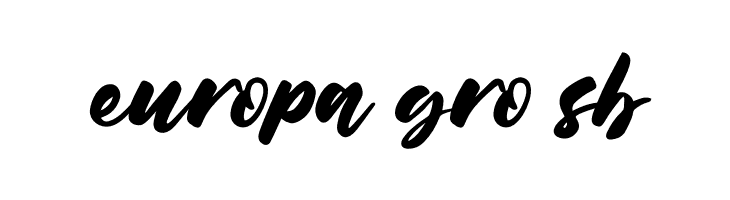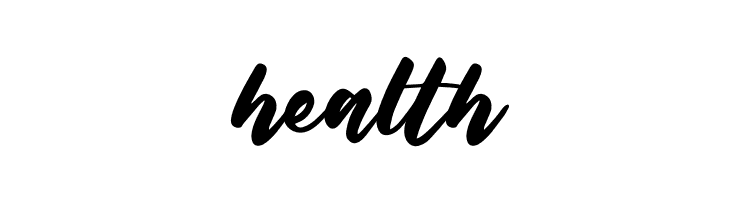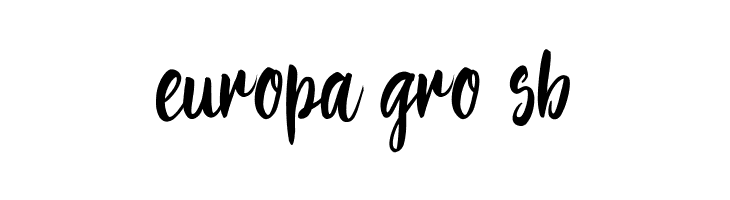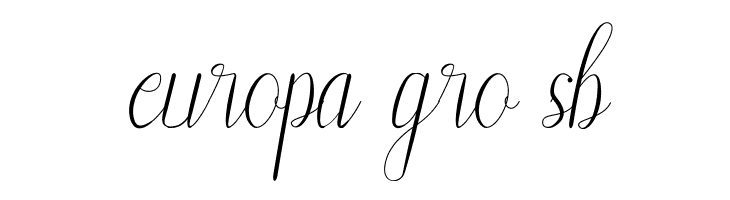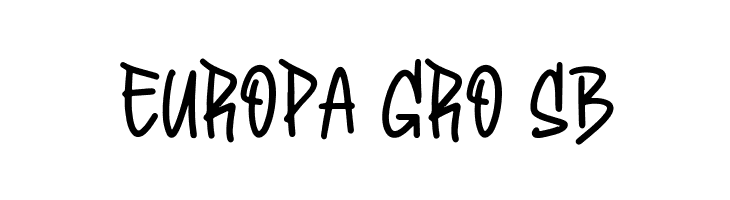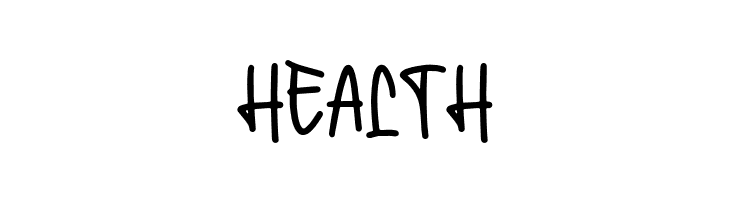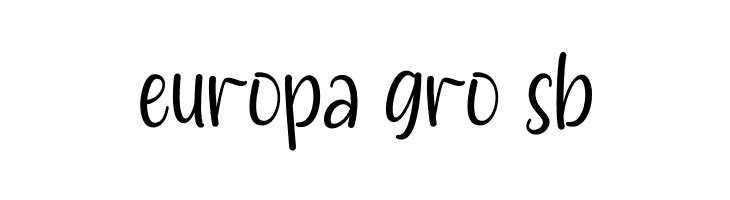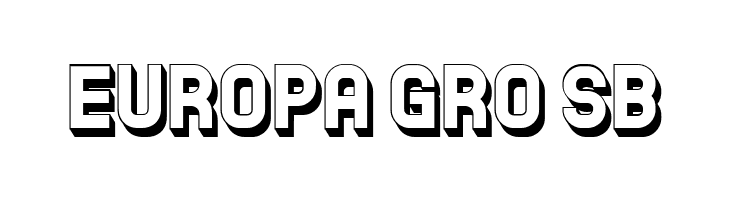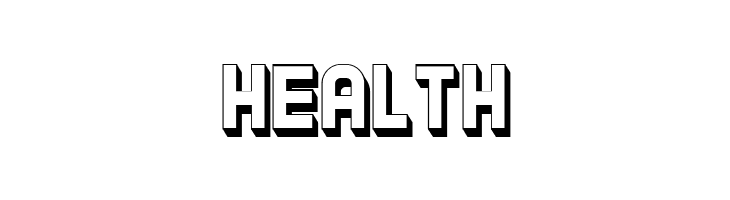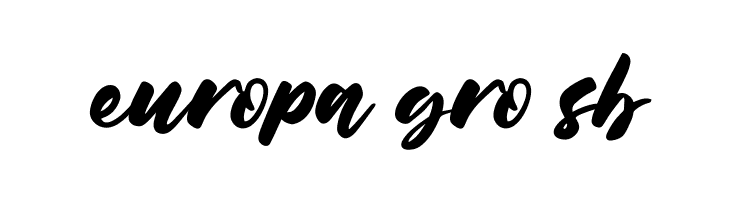
• Belynda
A bold, cursive script font with a modern, flowing style.
• Belynda
A bold, expressive script font with a dynamic, handwritten style.
• Belynti Demo Script
A graceful and artistic script font with flowing, cursive letters and intricate loops.
• Bembies
A playful, bold handwritten font with an energetic and informal style.
• BemBolz
A classic serif font with elegant, slightly italicized characters.
• Bemboza script
A bold, expressive brush script font with dynamic strokes and artistic flair.
• Bemock Regular
A bold, three-dimensional font with strong shadow effects and a geometric style.
• Bemoly Cute
A playful, handwritten font with smooth, flowing characters and a whimsical style.
• Bemount
A bold, modern font with elongated characters and a unique artistic style.
• Bemount Line
A playful, hand-drawn font with bold outlines and textured fills.